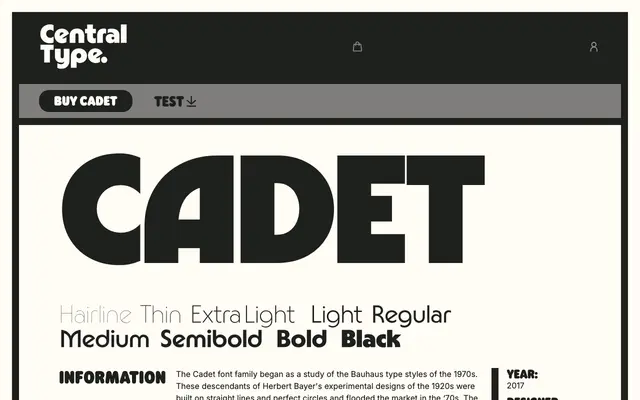
A grotesque sans-serif from Central Type with a utilitarian, military-inflected character suggested by its name.
Named after the training rank, Cadet is a grotesque sans-serif released by Central Type. The design carries a utilitarian sensibility suited to functional typographic work. Limited page content was available for a fuller assessment of weights, language support and full family details.